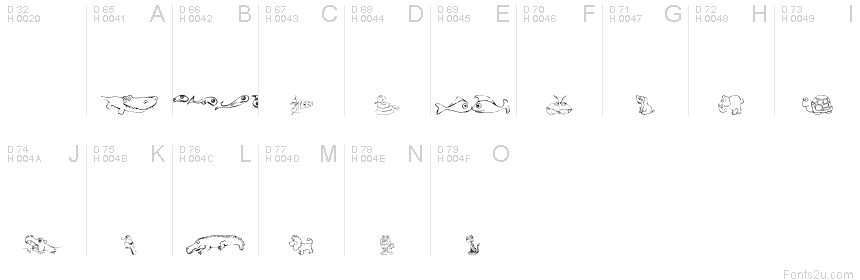
KR Jungle Scraps
KR Jungle Scraps font by Kat Rakos is a free animal dingbat typeface that drops a whole cartoon jungle into your keyboard. Each glyph is a lively black‑and‑white illustration—wide‑eyed hippos, perched birds, and other critters drawn with loose, inky lines and chunky outlines that reproduce cleanly at small or large sizes. The mood is playful rather than wild, giving your layouts a friendly, storybook feel without needing any extra clip art.
Using KR Jungle Scraps, you can quickly build kids’ party invites, classroom worksheets, coloring pages, animal‑themed logos, scrapbooking accents, and playful social posts. The consistent line weight means these icons also work beautifully as stickers or badges. Pair this free font with a simple rounded sans serif for text, and keep the dingbats large and bold so the characters stay readable and expressive.